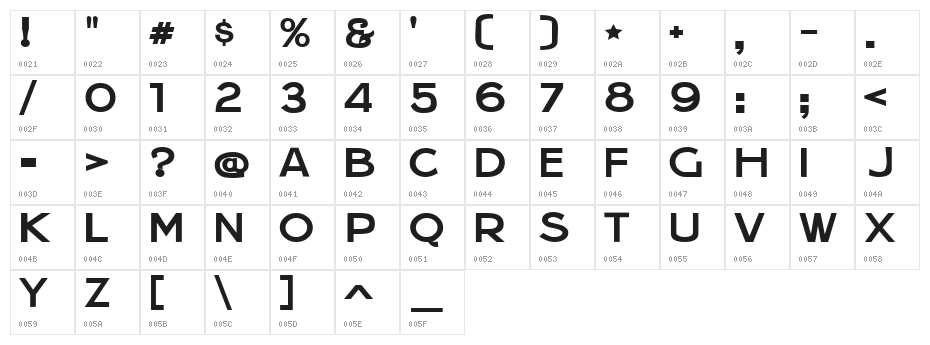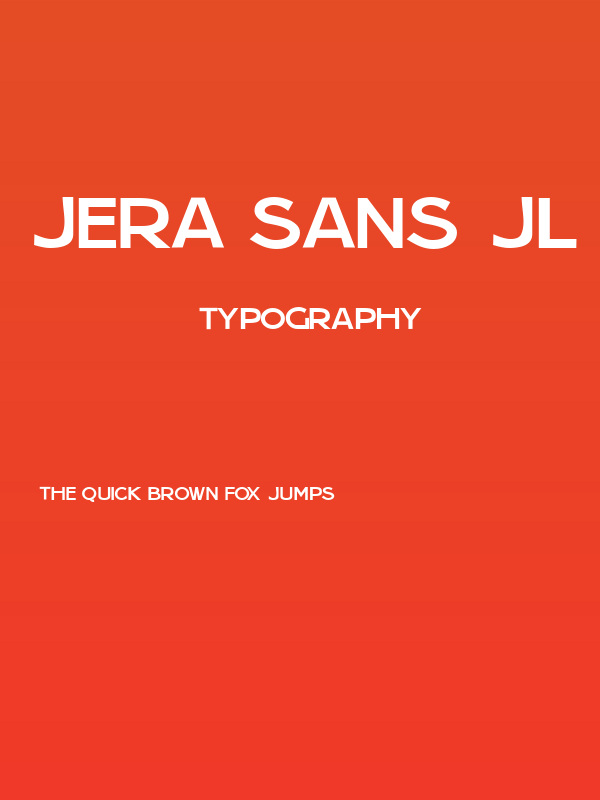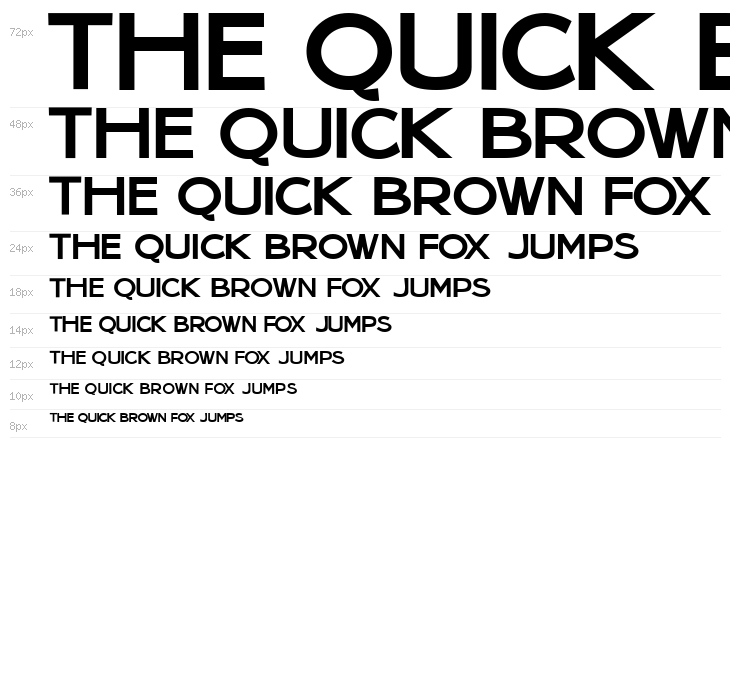
Jera Sans JL Font
Jera Sans JL Description
This typeface exhibits a clean and modern aesthetic with a sans-serif style. The characters are bold and have a uniform stroke width, contributing to a strong and impactful appearance. The design is geometric, with smooth curves and straight lines, providing a contemporary feel. The uppercase and lowercase letters maintain a consistent height, enhancing readability. The numerals are clear and distinct, matching the overall boldness of the alphabet. Special characters are well-integrated, maintaining the font's cohesive look. This font is versatile, suitable for various design applications.
| Use Case | Headlines, Logos, Advertising |
| Proposed Projects | Ideal for branding, advertising, headlines, and digital media projects where a modern and bold statement is needed. |